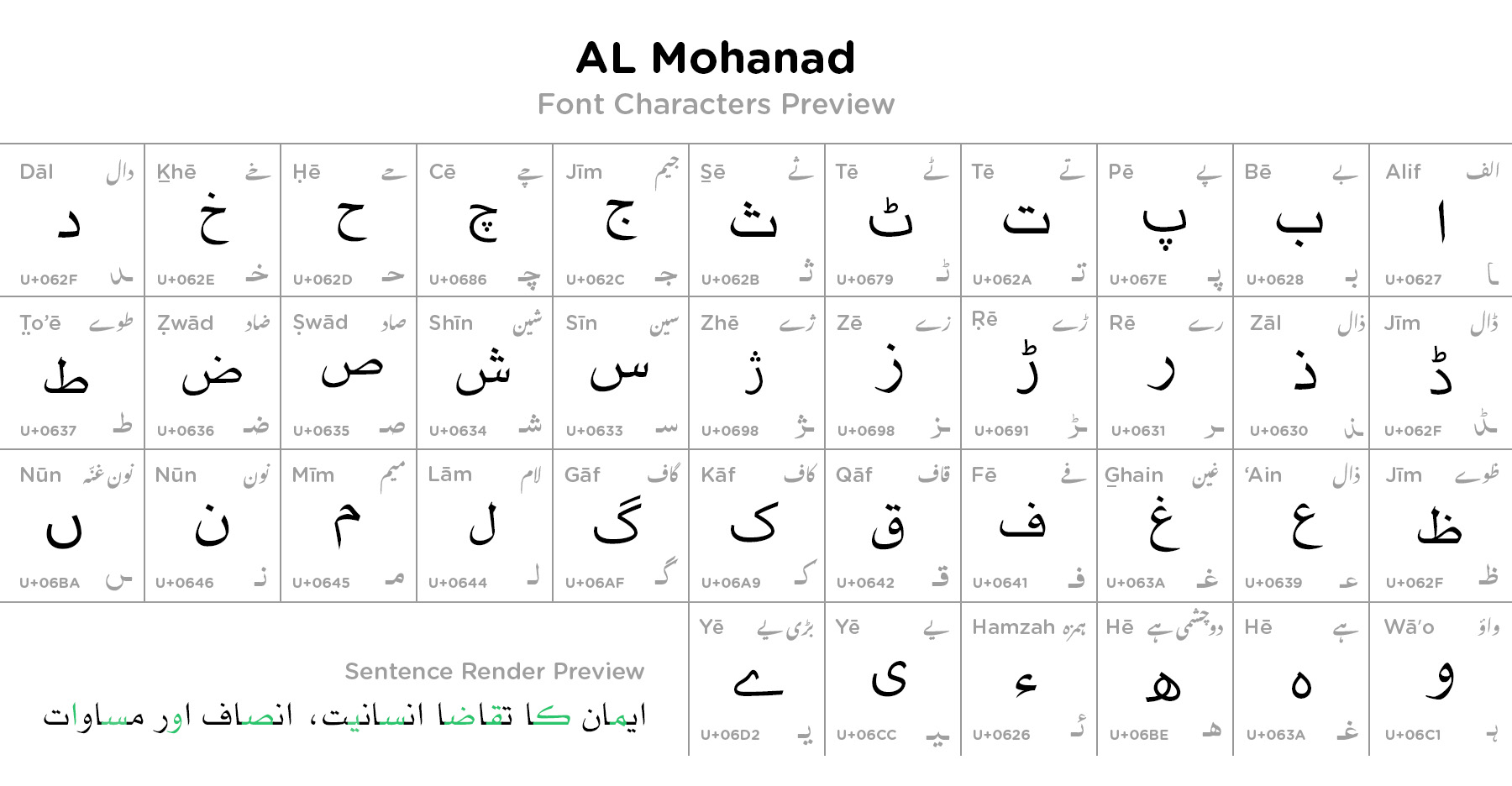
AL Mohanad is a wide Qalam writing Arabic font renowned for its sharp edges and corners, exuding a refined and elegant appearance. Inspired by traditional Naskh calligraphy, it features slanted edges cut at diagonals with horizontal emphasis, capturing the essence of classic Arabic script. Designed by Al-Amri, AL Mohanad offers 477 characters and 256 glyphs, providing versatility for various design projects. With a normal weight and medium width, it strikes a balanced look suitable for both short and long texts. The font’s thickness varies at every curve and corner, mimicking the flow of a calligraphic pen, while its strong strokes create an impactful effect. Moreover, it is available in 2 different font weights, increasing its diversity, appeal, and suitability for different applications. These weights are:
Despite its intricate detailing, AL Mohanad maintains high legibility, even at smaller sizes, thanks to its clear letterform. The even spacing between letters adds visual interest to the text. Released with compatibility for Basic Latin, Latin-1 Supplement, and Private Use Area Unicode blocks, the font finds applications in headings, titles, creative posters, flyers, logos, and branding projects. Its timeless design and versatile nature make it a valuable asset for designers seeking to infuse their projects with Arabic elegance.